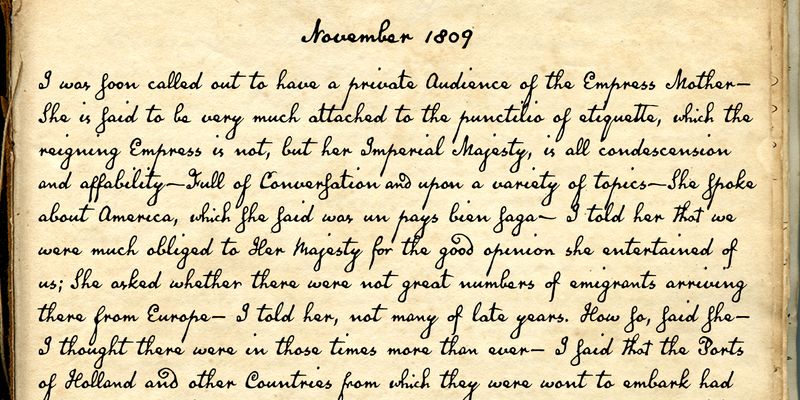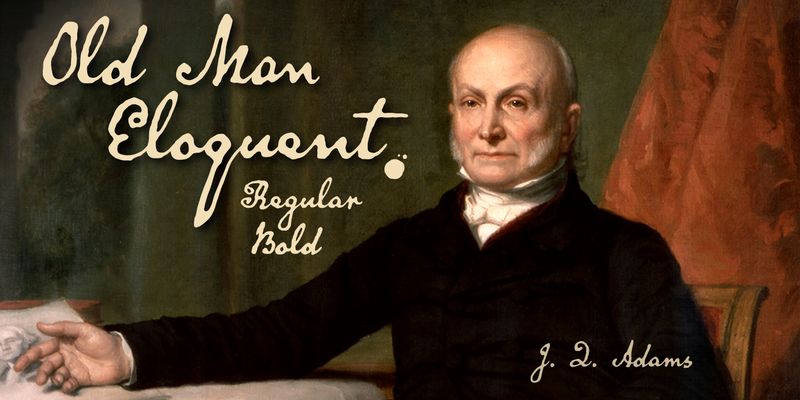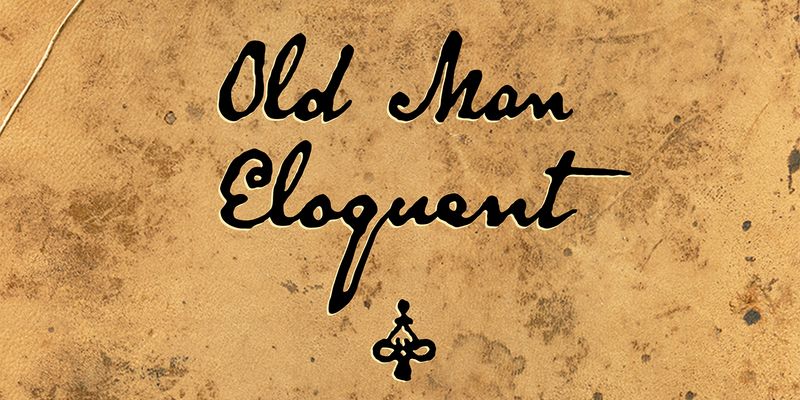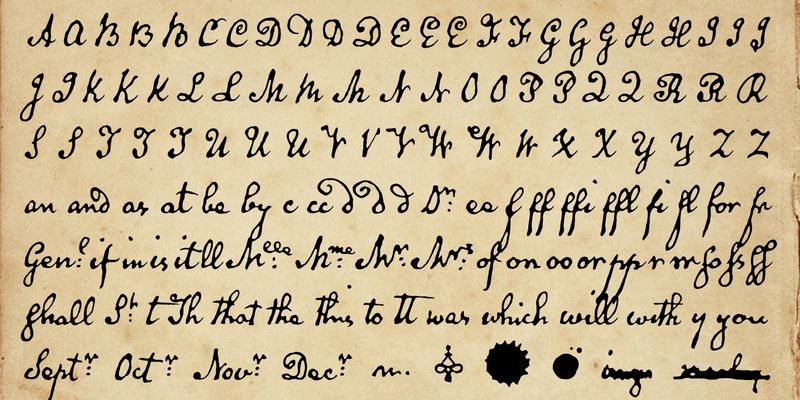
Old Man Eloquent™ mimics the hand of John Quincy Adams in his famous daily diary. It has a regular and (slightly) bolder weight, numerous contextual and stylistic alternates, and full Latin support.